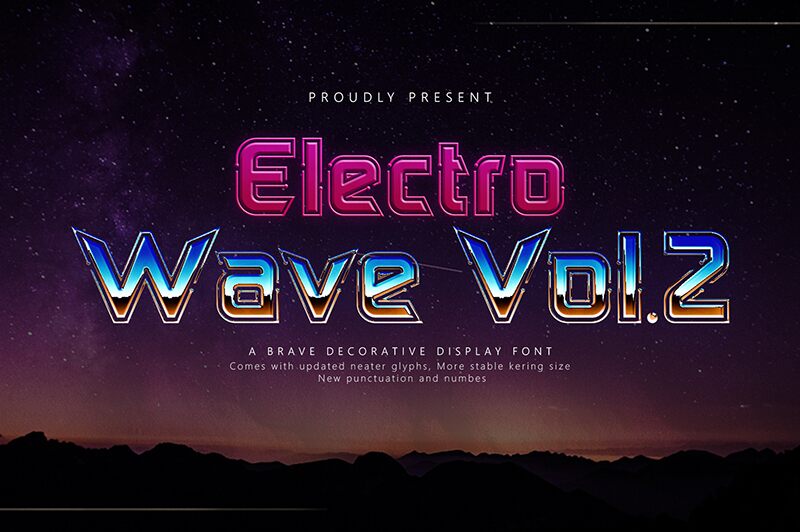
ElectroWaveVol.2
Electro Wave Vol.2 font by Jamaluddin is an intense geometric display font that combines a techno-inspired futuristic look with an energetic feel. Special features of this piece are its condensed letters and thick lines alongside cuts taking place at different angles, all living in a digital influence that gives a modern aesthetic to our applications.
The free techno display font is fully equipped to bring spark into tech-themed activities; website designs, heading texts, backgrounds, branding, magazines, typography of different kind. The strong structure of Electro Wave will also positively impact your logos when you choose to include it in them!